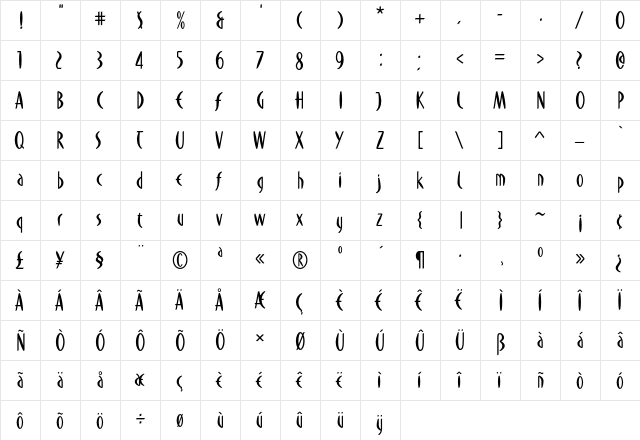
DuMoore Regular
Design Context for DuMoore Typeface
DuMoore is a composed and adaptable typeface that performs quietly and consistently across a wide range of design contexts.